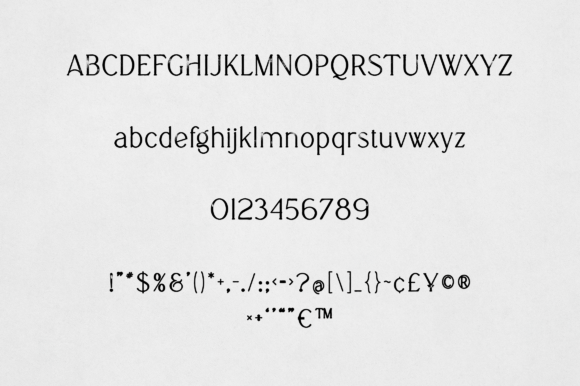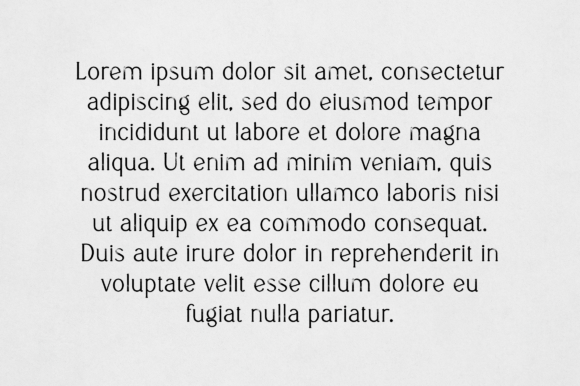
Gio Font: Elevate Your Typography with Elegance and Versatility
Are you tired of using the same old fonts for your designs? Look no further than Gio Font, an elegant and versatile serif font that will take your typography to the next level. With its unique charm and sophisticated style, Gio is perfect for designers and crafters looking to add a touch of luxury to their work.
The Perfect Blend of Elegance and Versatility
Gio Font is designed to be both elegant and versatile, making it suitable for a wide range of design applications. Whether you’re creating a logo, branding materials, headlines, or plain text, Gio is the perfect choice. Its serif design adds a touch of sophistication and refinement, while its versatility ensures that it can be used in various contexts.
Make Your Typography Truly Unique
What sets Gio Font apart from other fonts is its unique character. With its elegant lines and refined features, Gio adds a touch of personality to any design. Whether you’re looking to create a bold statement or a subtle impression, Gio Font is the perfect tool to help you achieve your typography goals.
When it comes to creating logos and branding materials, the right font can make all the difference. Gio Font is designed to help you create stunning logos and branding materials that will leave a lasting impression. Its elegant design and versatile style ensure that it can be used in a variety of contexts, from business cards to billboards.
Enchanting Headlines and Plain Text
Gio Font is not just limited to logos and branding materials. Its elegant design and refined features make it perfect for headlines and plain text as well. Whether you’re creating a blog post, article, or social media post, Gio Font is the perfect choice to add a touch of sophistication and elegance to your typography.
Why Choose Gio Font?
So why choose Gio Font over other fonts? Here are just a few reasons:
- Elegant Design: Gio Font features an elegant design that adds a touch of sophistication and refinement to any typography.
- Versatile Style: Gio Font is versatile and can be used in a variety of contexts, from logos and branding materials to headlines and plain text.
- Unique Character: Gio Font has a unique character that sets it apart from other fonts, making it perfect for designers and crafters looking to add a touch of personality to their work.
Here are a few tips and tricks to help you get the most out of Gio Font:
- Experiment with Different Sizes: Gio Font looks great in a variety of sizes, from small and delicate to large and bold.
- Play with Color: Gio Font can be used with a wide range of colors, from neutral tones to bold and bright hues.
- Mix and Match: Gio Font can be paired with other fonts to create a unique and interesting typography combination.
In conclusion, Gio Font is an elegant and versatile serif font that is perfect for designers and crafters looking to add a touch of luxury to their work. With its unique character, sophisticated style, and versatile design, Gio Font is the perfect choice for a wide range of design applications. Whether you’re creating logos, branding materials, headlines, or plain text, Gio Font is the perfect tool to help you achieve your typography goals.